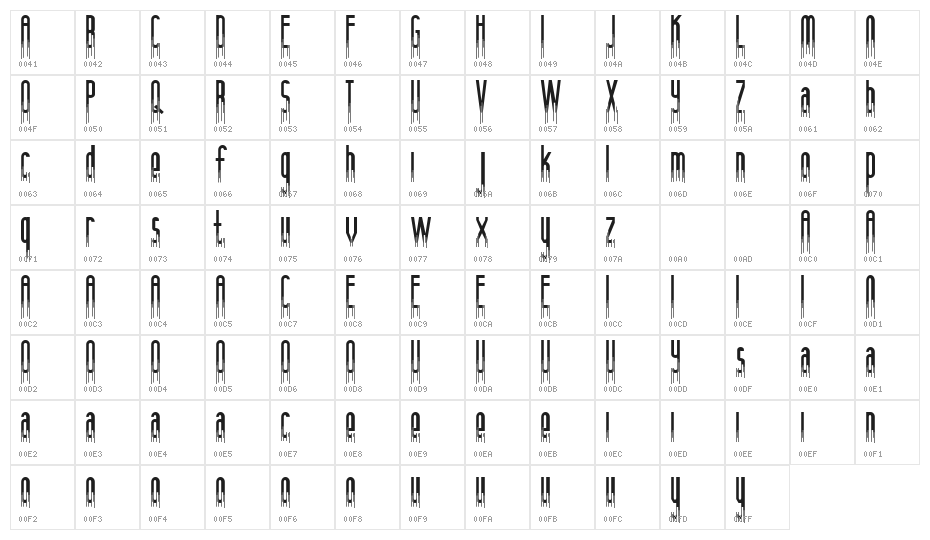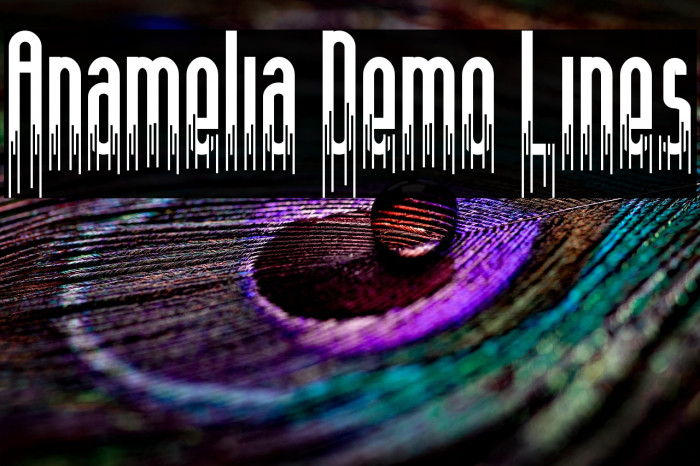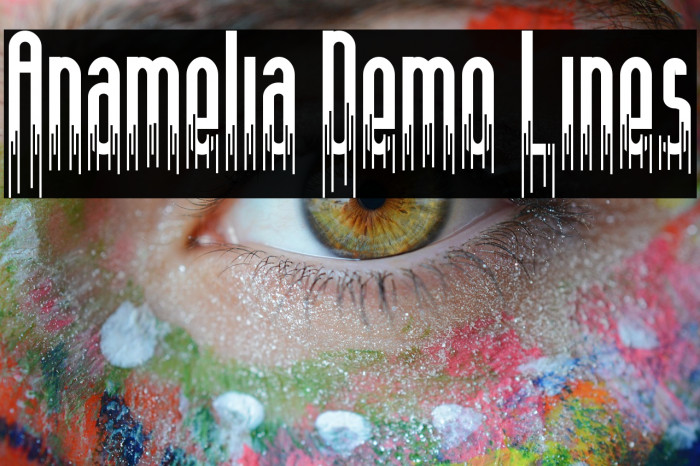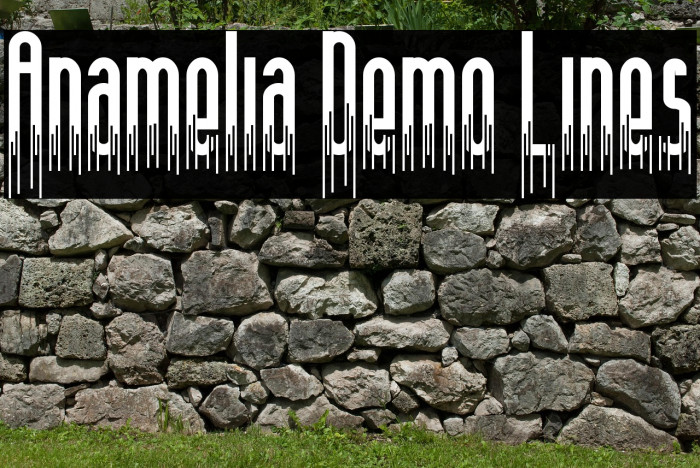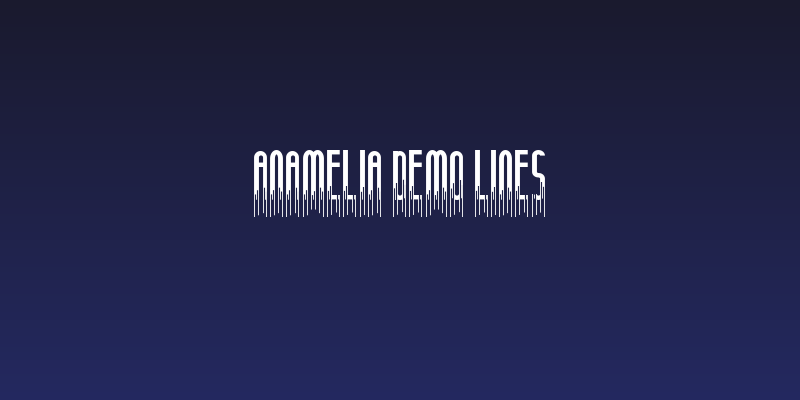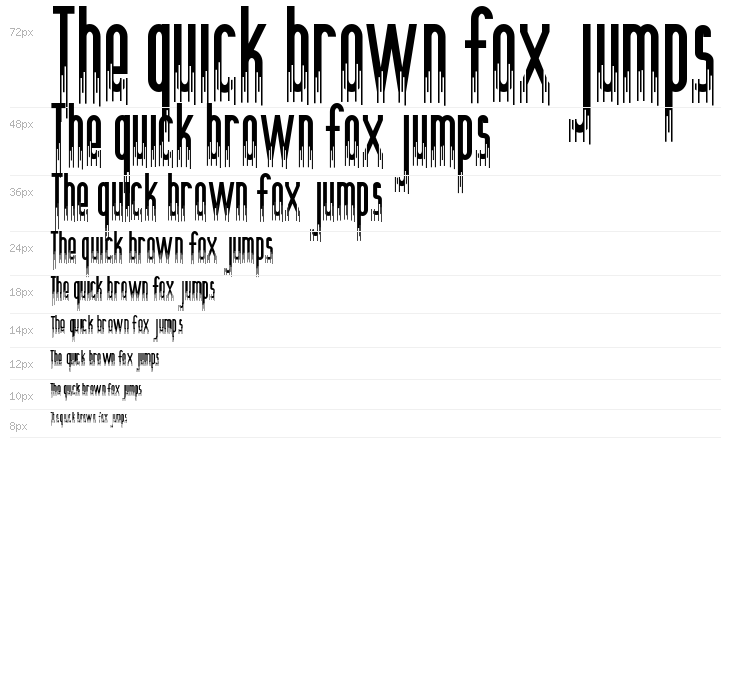
Anamelia Demo Lines Font
Anamelia Demo Lines Description
This font features a striking and unique design with elongated vertical lines that create a dripping effect, giving it a dynamic and edgy appearance. The uppercase and lowercase letters maintain a consistent height, contributing to a cohesive look. The characters are narrow and tall, emphasizing verticality and creating a sense of movement. This font is highly decorative, making it ideal for attention-grabbing designs. The special characters are integrated seamlessly, maintaining the overall aesthetic. The font's distinctive style makes it suitable for modern and artistic projects.
| Proposed Projects | Ideal for posters, album covers, fashion branding, and modern art projects. |